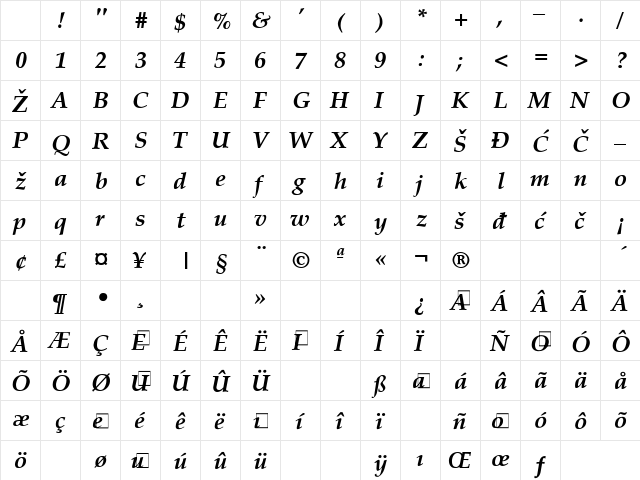
Complete Palm Springs Bold Italic YU Regular glyph index. Displaying only characters natively supported by Palm Springs Bold Italic YU Regular font.
Palm Springs Bold Italic YU is a composed and adaptable typeface that performs quietly and consistently across a wide range of design contexts. The slanted form adds forward momentum and visual energy. Its bold stroke weight gives it real presence on the page.
Pro Tip: Use Palm Springs Bold Italic YU for emphasis, pull quotes, and subheadings where its slanted energy can add rhythm to the layout.